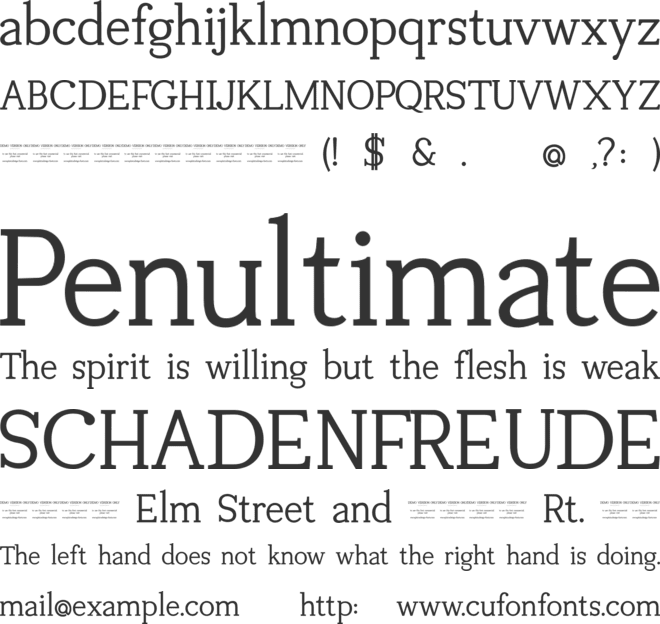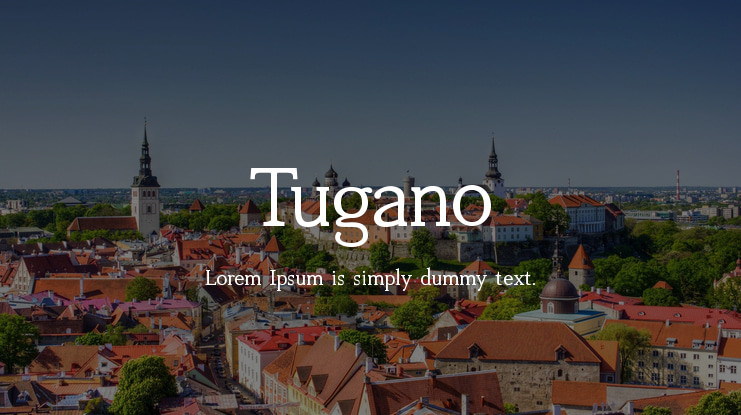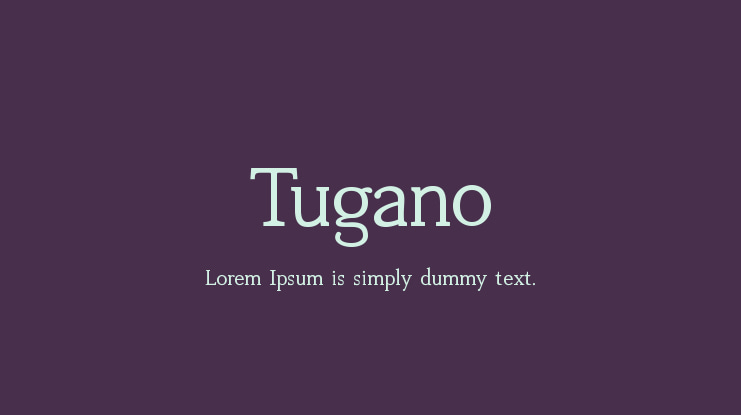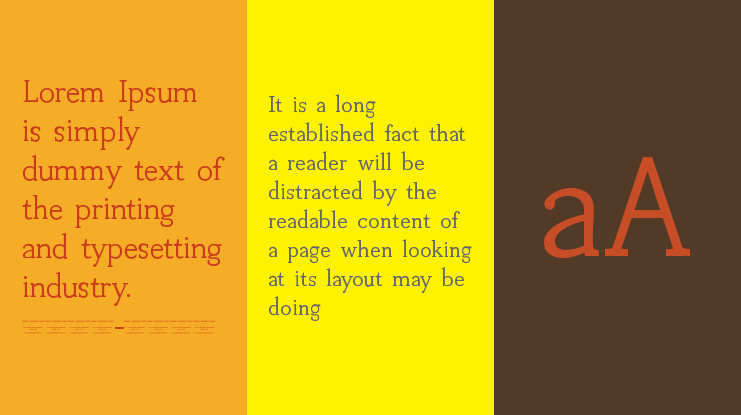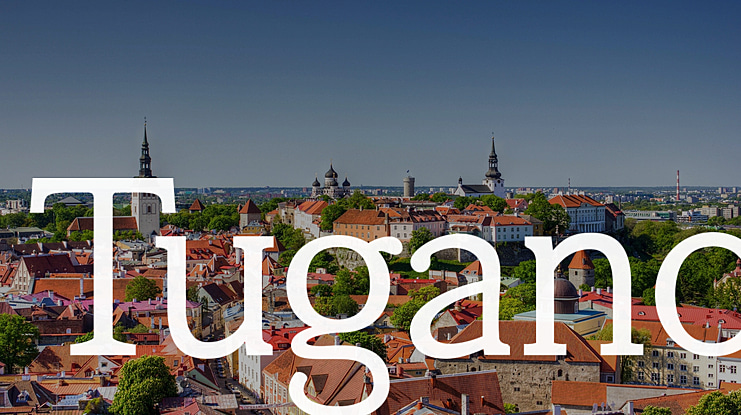
Tugano Font
Christoph Dörre
Tugano is a free serif font with more than 580 glyphs and ligatures, perfectly adapted for continuous text. A total of eight styles are made to design an eyecatcher for specific characters.